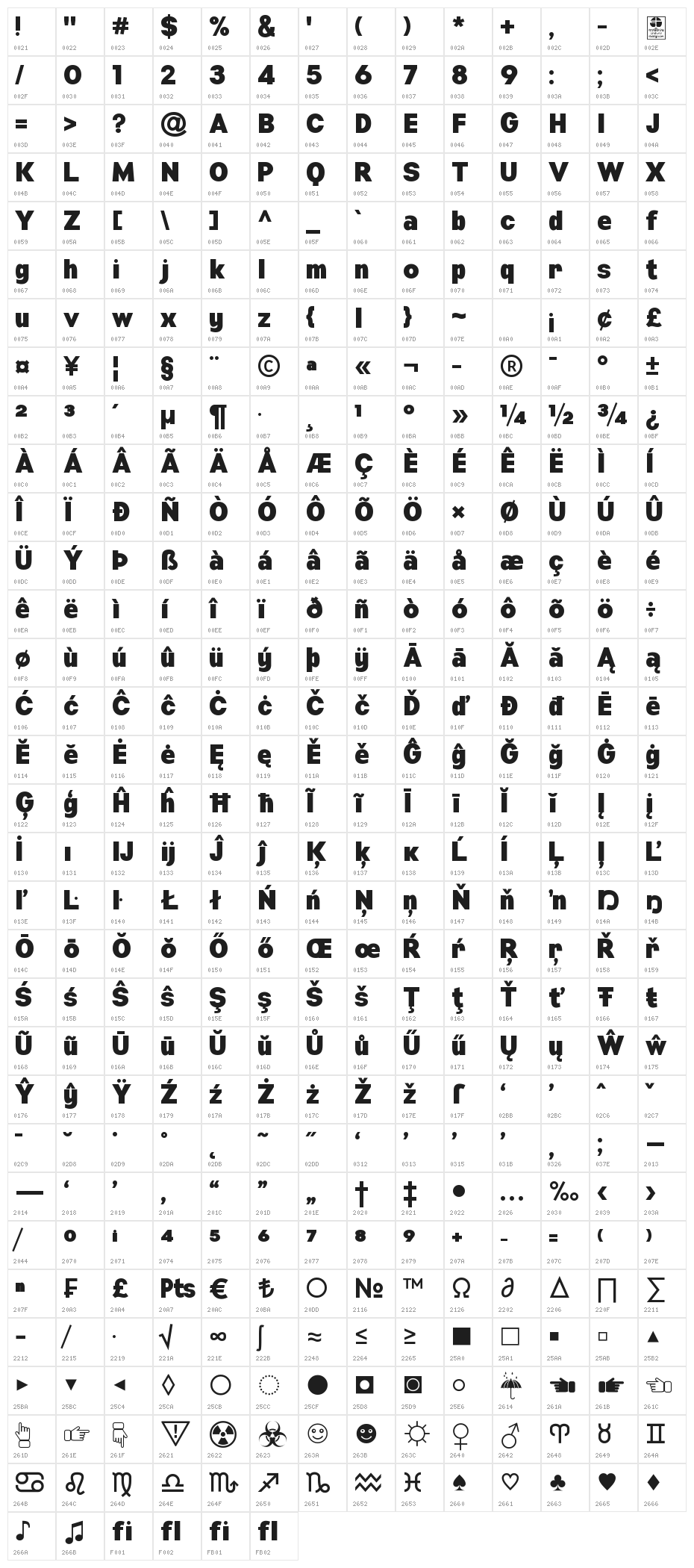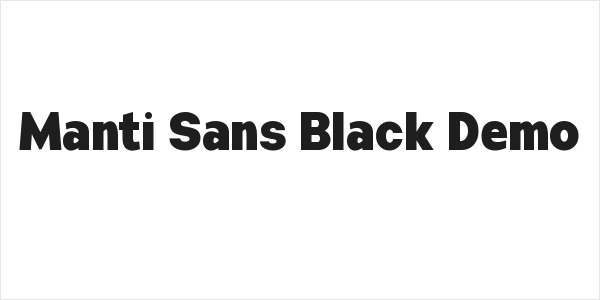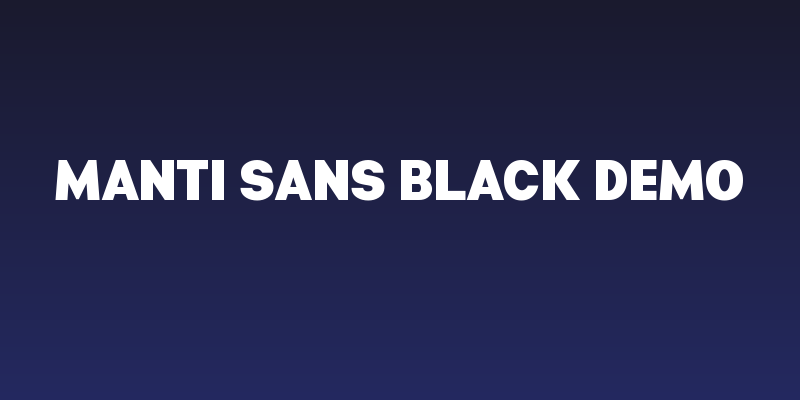
Manti Sans Black Demo Font
Manti Sans Black Demo Description
This font features a bold and impactful sans-serif design, characterized by its thick strokes and strong presence. The uppercase and lowercase letters maintain a consistent weight, providing a uniform appearance across all characters. The numerals are equally bold, ensuring they stand out in any context. Special characters are designed with the same boldness, making them easily recognizable. The overall style is modern and assertive, suitable for making a statement in any design project.
| Proposed Projects | Ideal for headlines, posters, branding, and any project requiring a strong visual impact. |